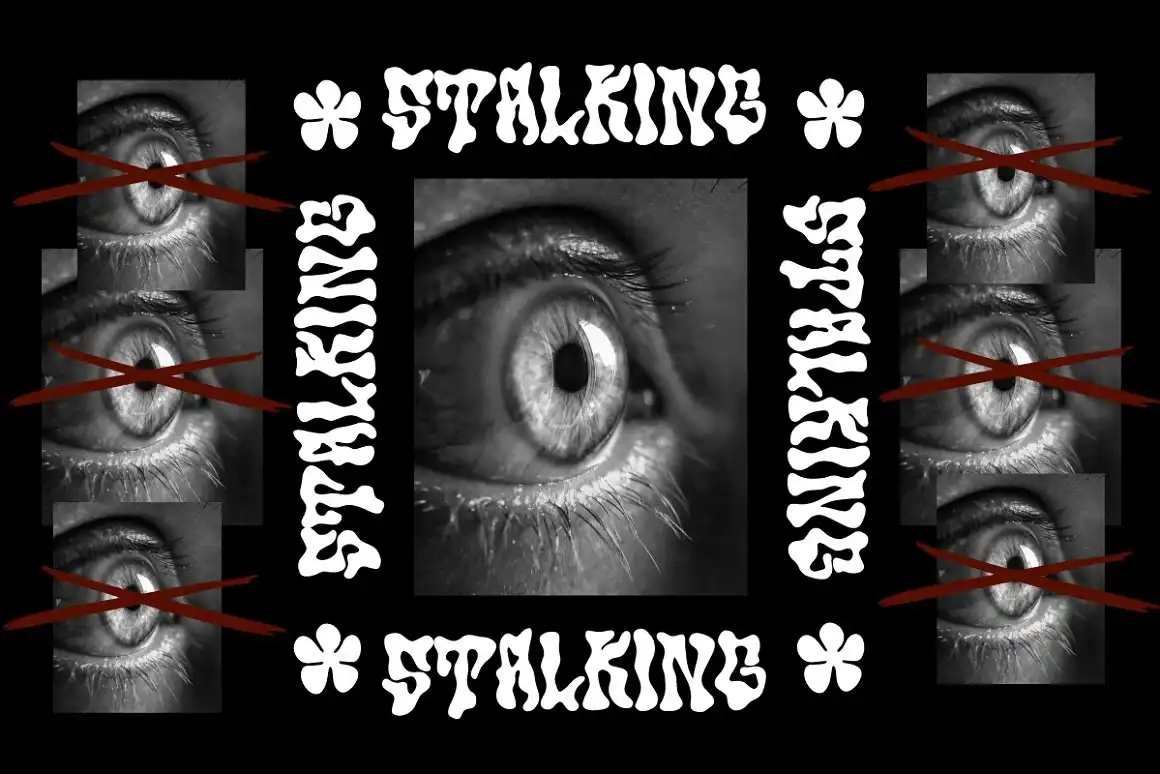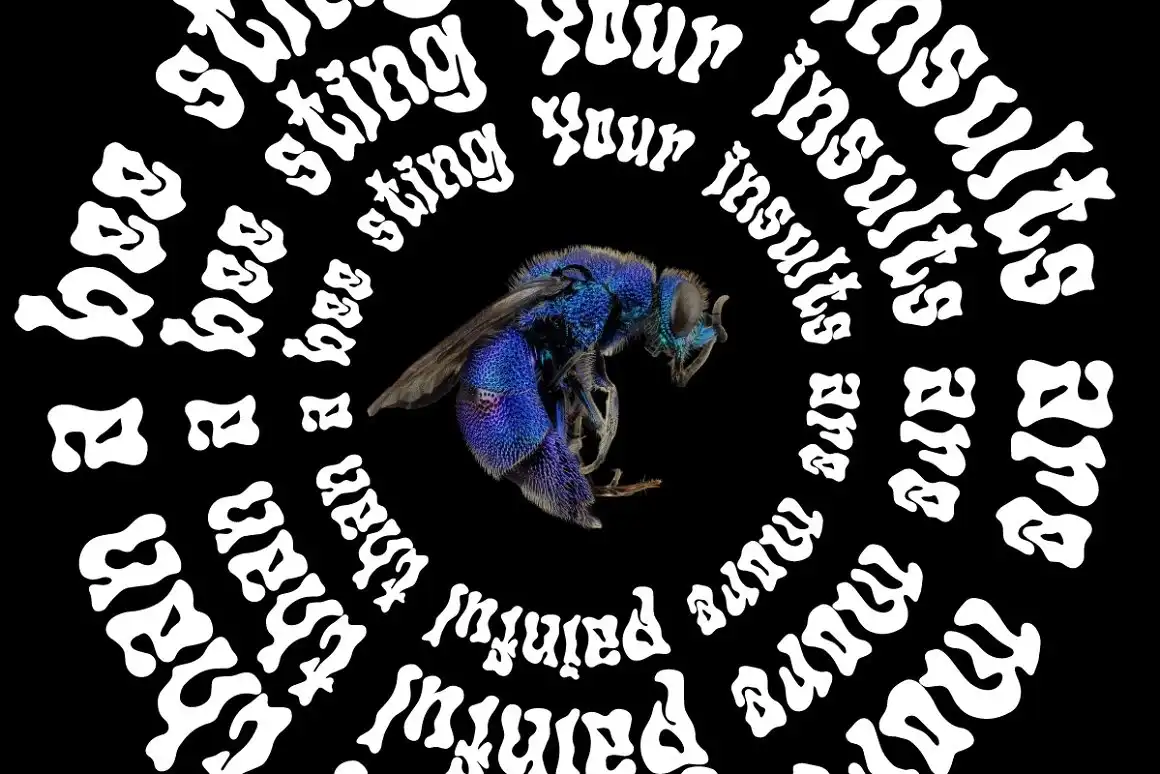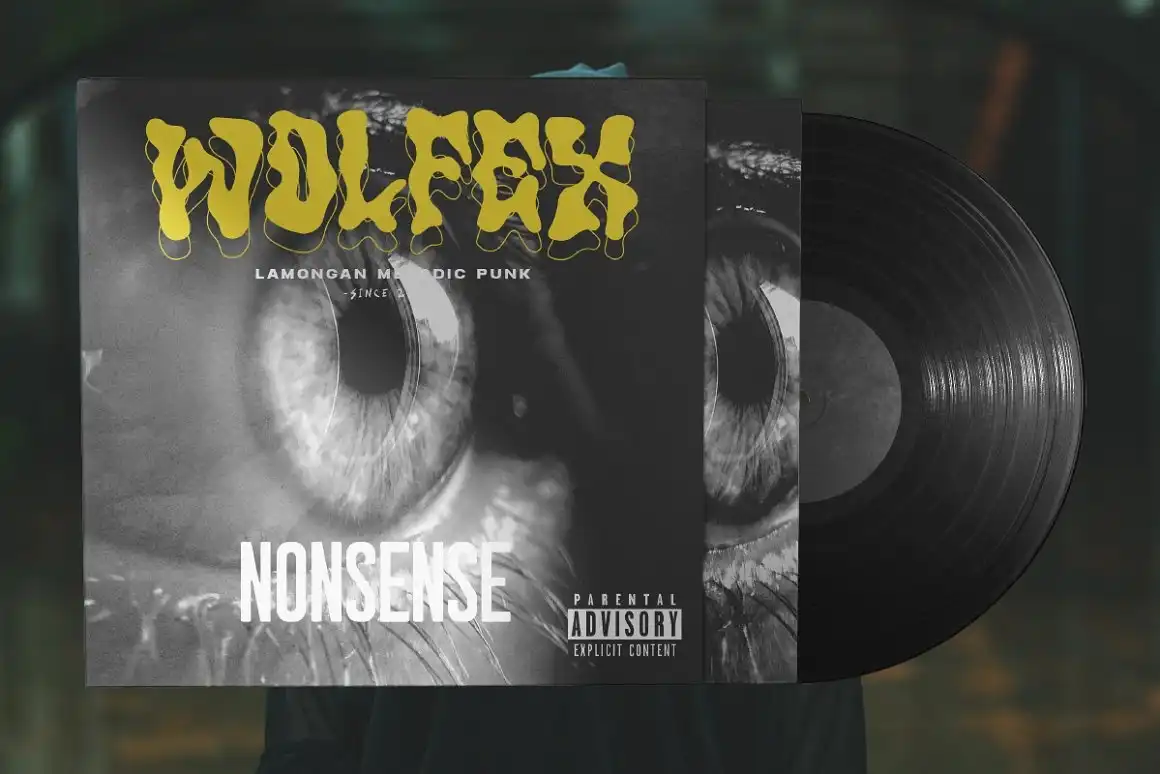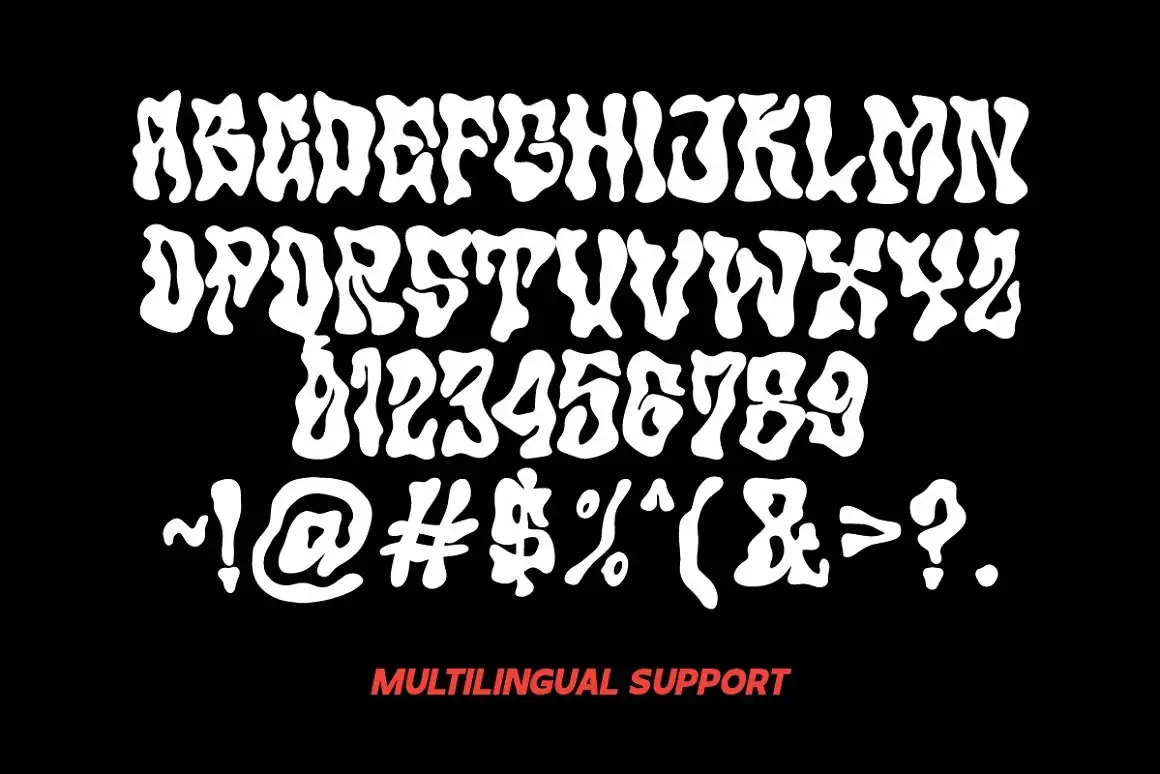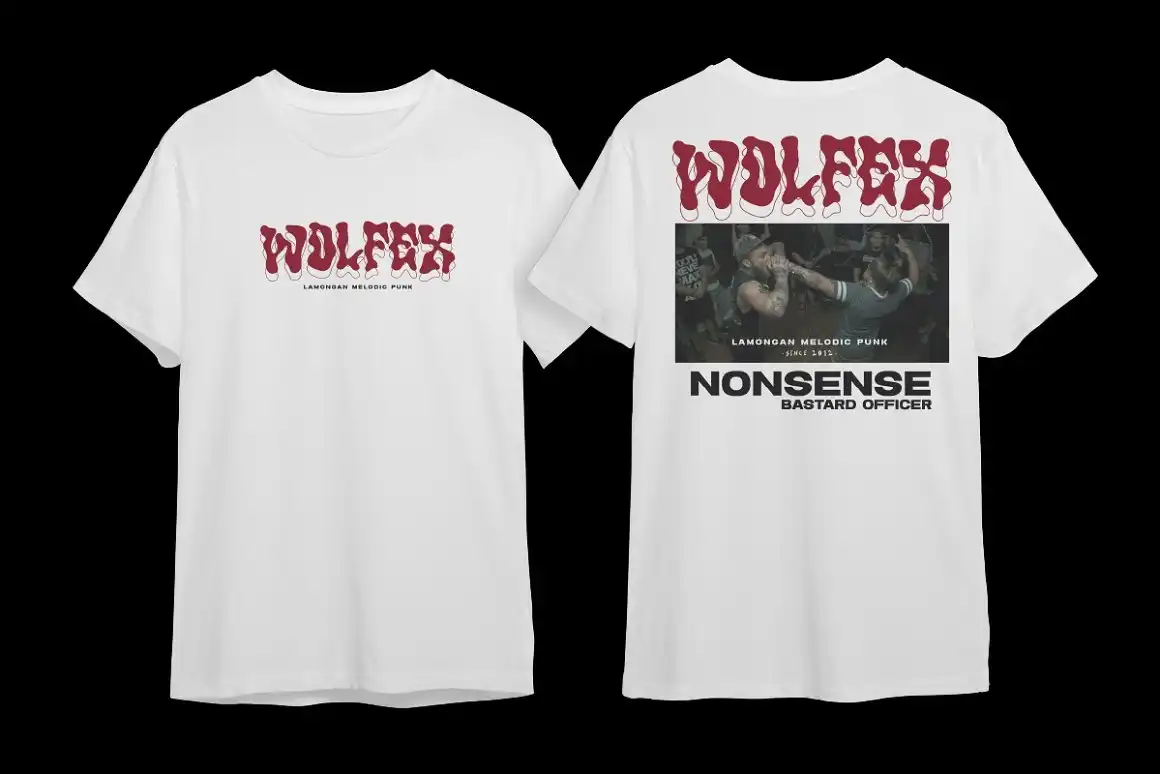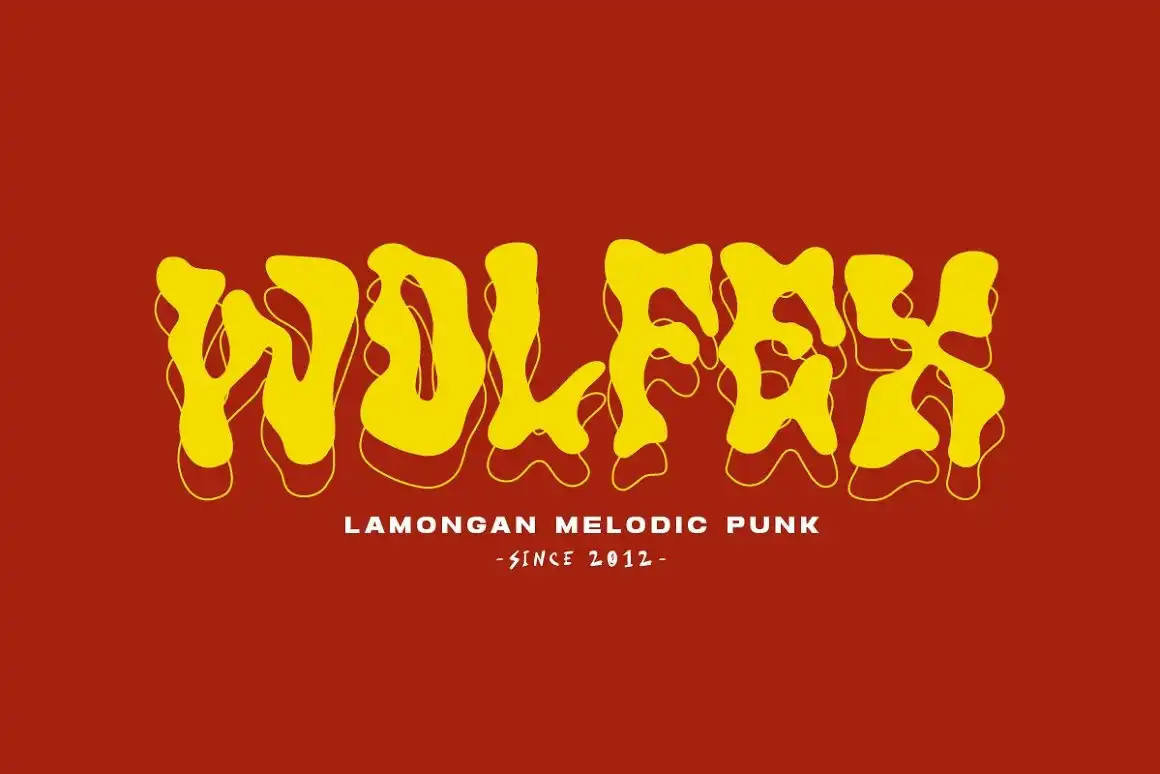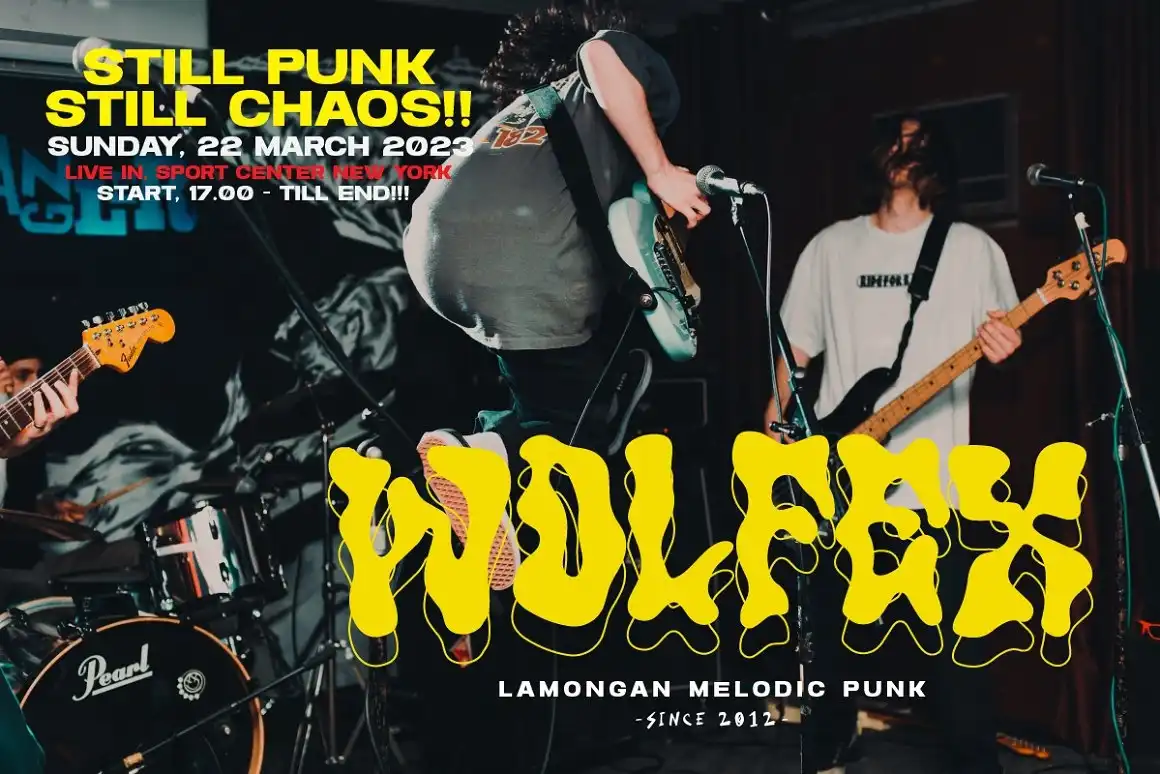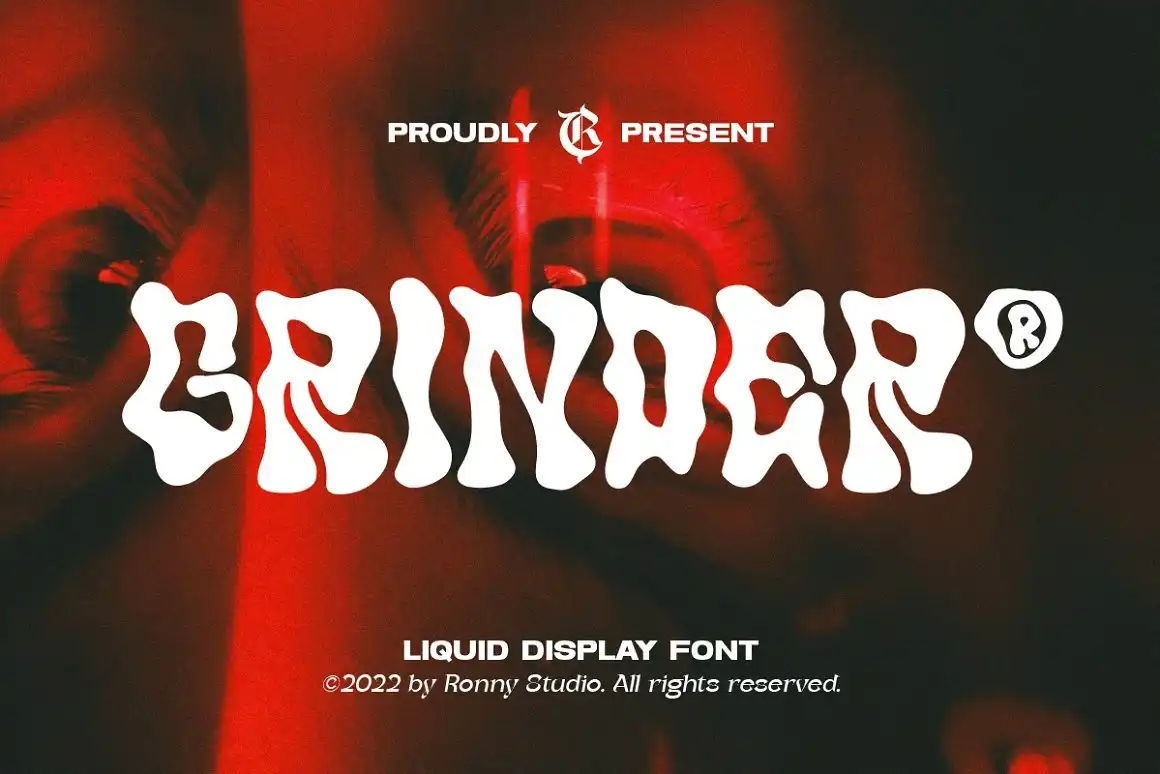
Welcome to the World of Grinder – Liquid Display Font!
Looking for a vibrant and playful font to bring your designs to life? The Grinder – Liquid Display Font by Ronny Studio is a fantastic digital download that offers instant access to a unique typographic experience! 🎉 With its retro and bold aesthetic, this font is perfect for designers who want to add a psychedelic touch to their projects. Whether you’re creating posters, magazines, Instagram graphics, or branding materials, Grinder is the perfect tool to spice things up! 🌈
Grinder is not just a font; it’s a creative statement! This display font embodies a hand-crafted, contemporary style that stands out in any project. Ideal for those who appreciate the art of typography, it brings a delightful liquid text effect that can elevate your designs to new heights. Embrace the charm of Ronny J Studio and let your creativity flow with this stunning font! ✨
- Retro Style: Adds a nostalgic vibe to your designs, making them eye-catching and memorable.
- Versatile Usage: Perfect for a variety of applications, from digital to print media.
- Multilingual Support: Ensures your designs can reach a global audience with ease.
This font is an ideal choice for graphic designers, typographers, and anyone looking to inject a playful flair into their creations. Whether you’re working on branding, advertising, or social media content, Grinder will help you stand out! 🎨